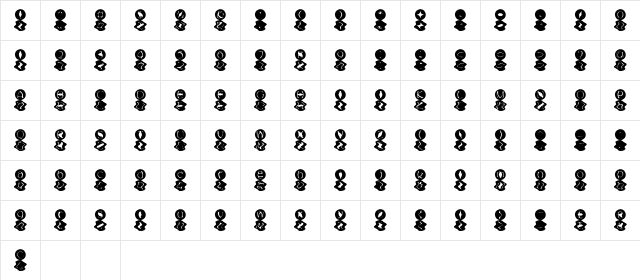
mashy Bong & Gossip mashy Bong & Gossip
Design Context for mashy Bong & Gossip
mashy Bong & Gossip is a composed and adaptable typeface that performs quietly and consistently across a wide range of design contexts.
Pro Tip: Use mashy Bong & Gossip in both headline and body roles to test its range before committing to a single application.